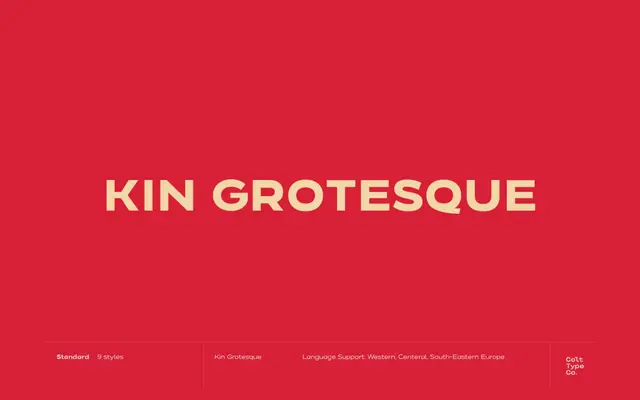
Kin Grotesque Family
A nine-weight grotesque sans intended as a workhorse for editorial, body copy and logo work across Western and Central European scripts.
Offered in nine weights each with matching italics, it covers Western European, Central and South-eastern Latin character sets. The design sits in the modern classic grotesque tradition, broad enough in range to move between headline and body text settings. At £25 for the full family it pitches itself as an accessible general-purpose option for branding and editorial projects.
Self-described as a modern classic grotesque sans-serif, positioned for both body copy and display use across editorial and branding contexts.